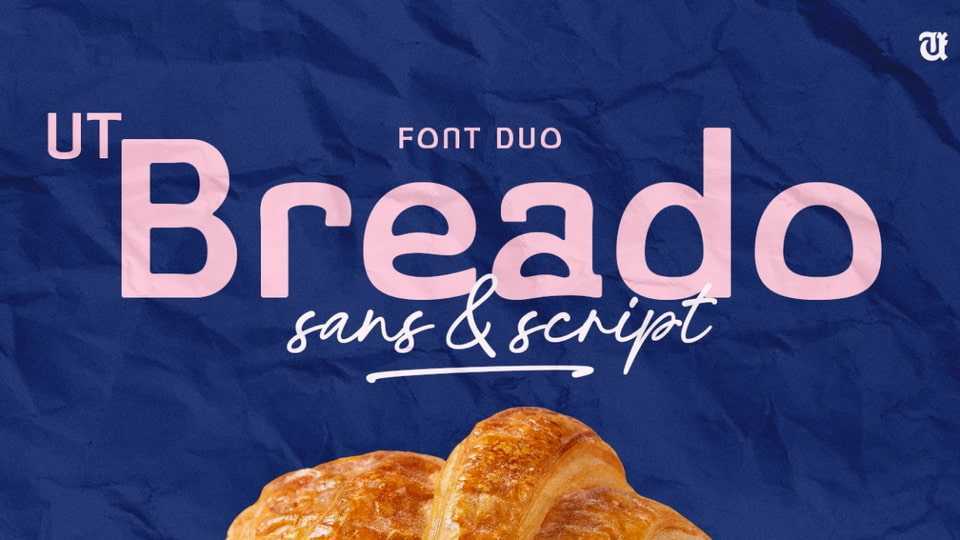
Download UT Breado Font Duo, a typeface that reimagines traditional typography, blending the comforting essence of freshly baked bread with playful design.
Designer: Universitype Foundry